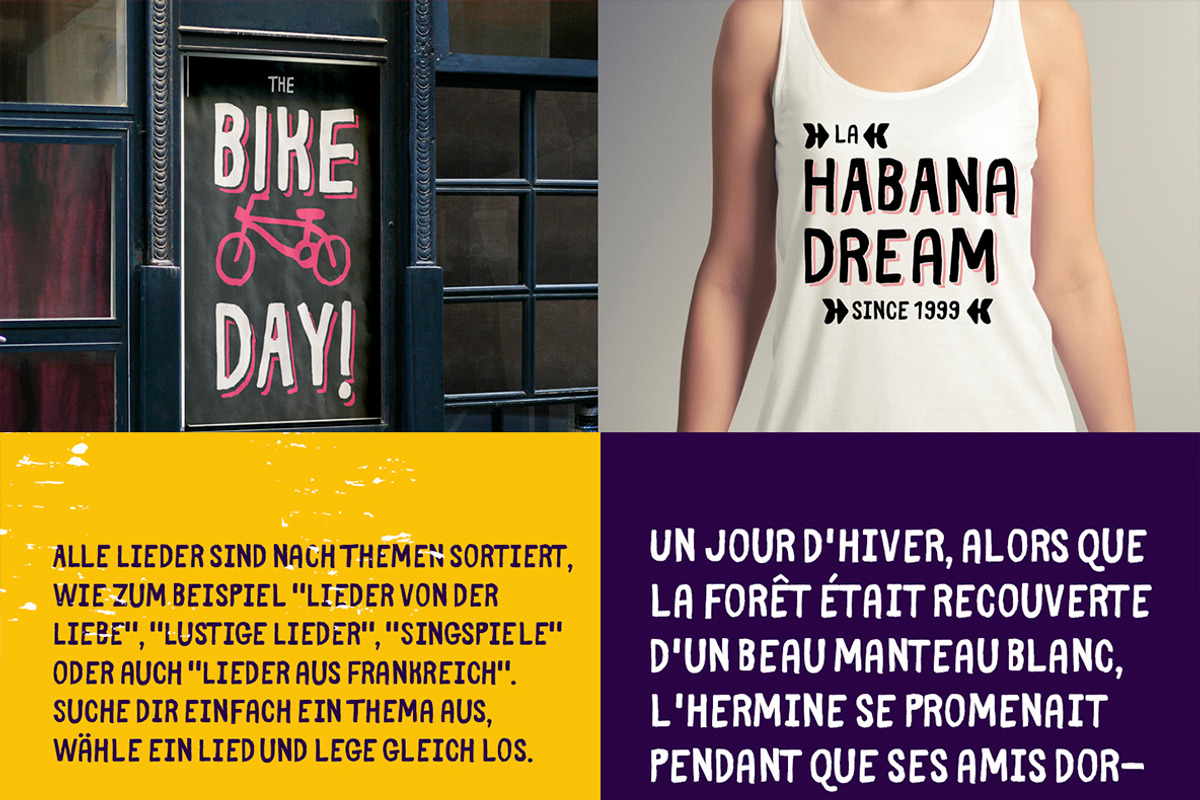
Bike Park all family
Author : Rodrigo Araya Salas Year: 2017 Concept: This typography is based and aimed at people who like bicycles and who take life in a relaxed way, contains different alternatives from shadows, ornaments, dingbats.